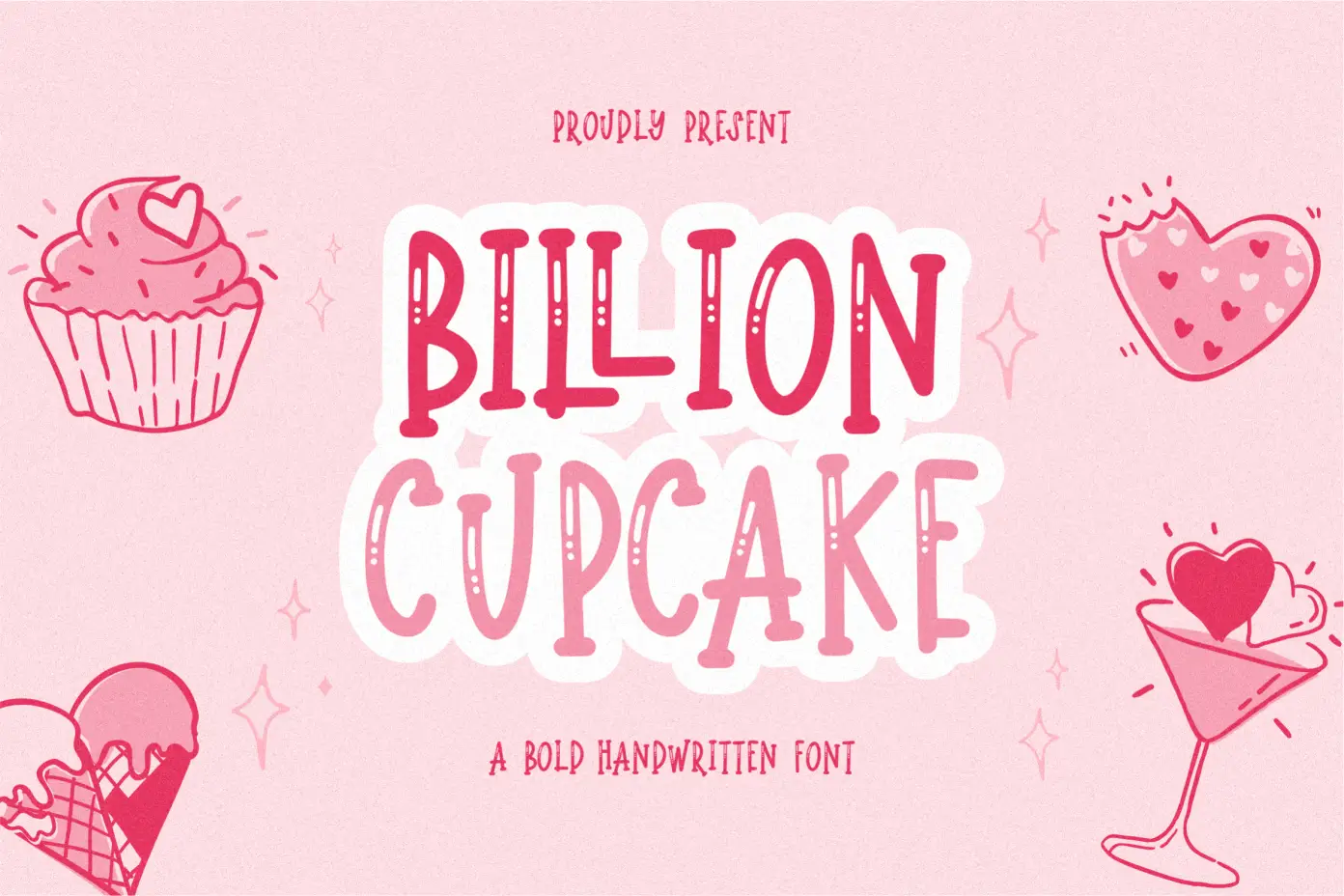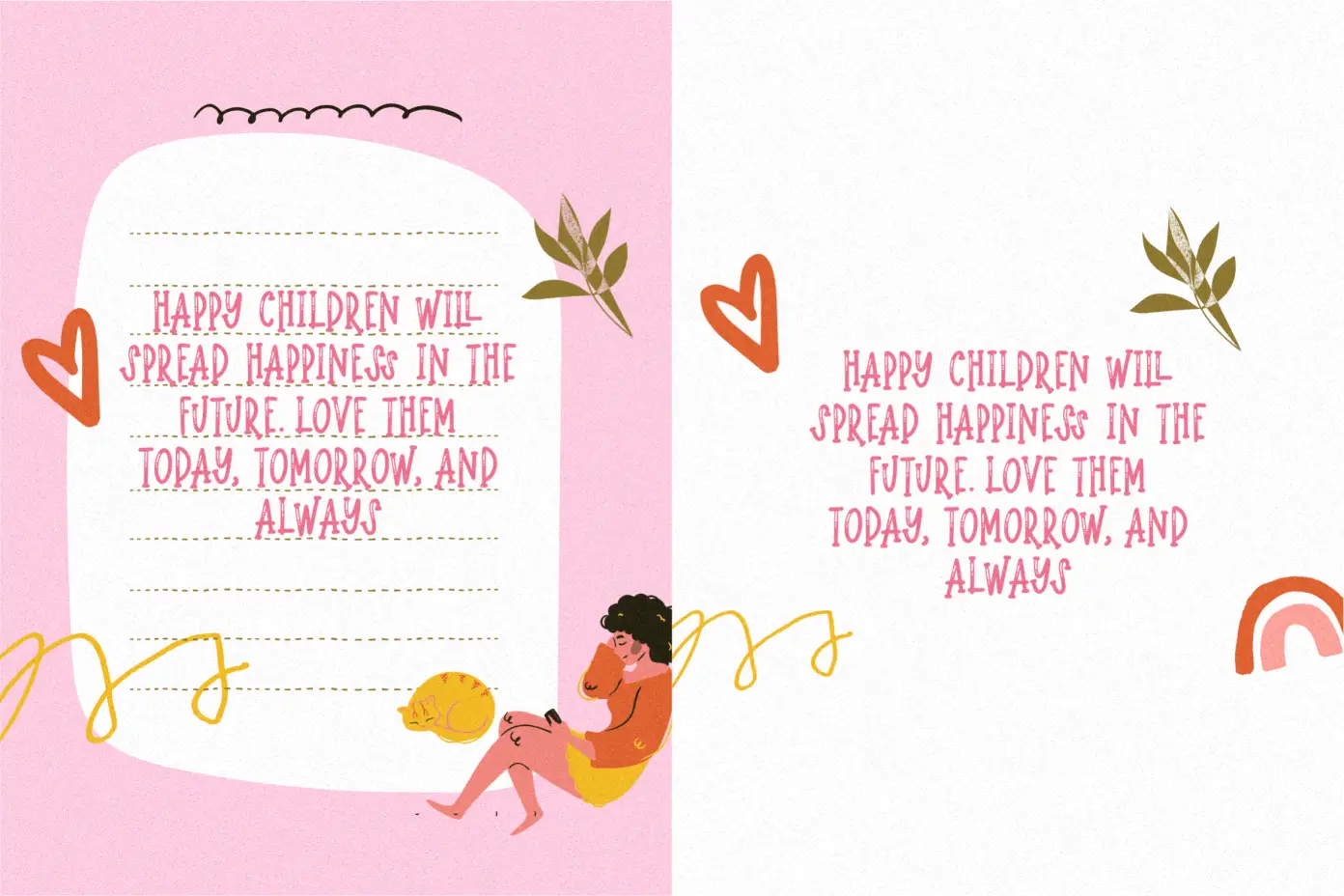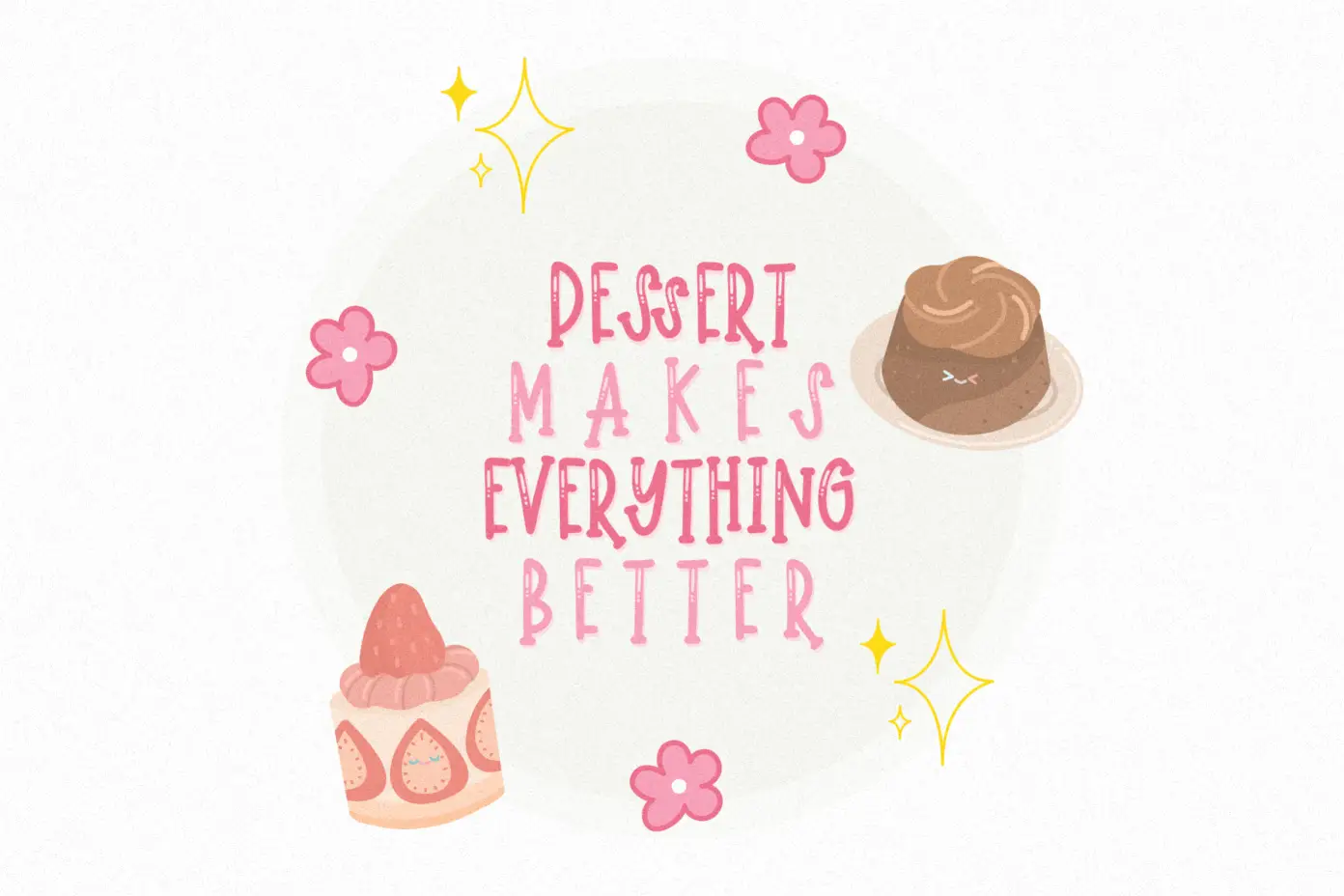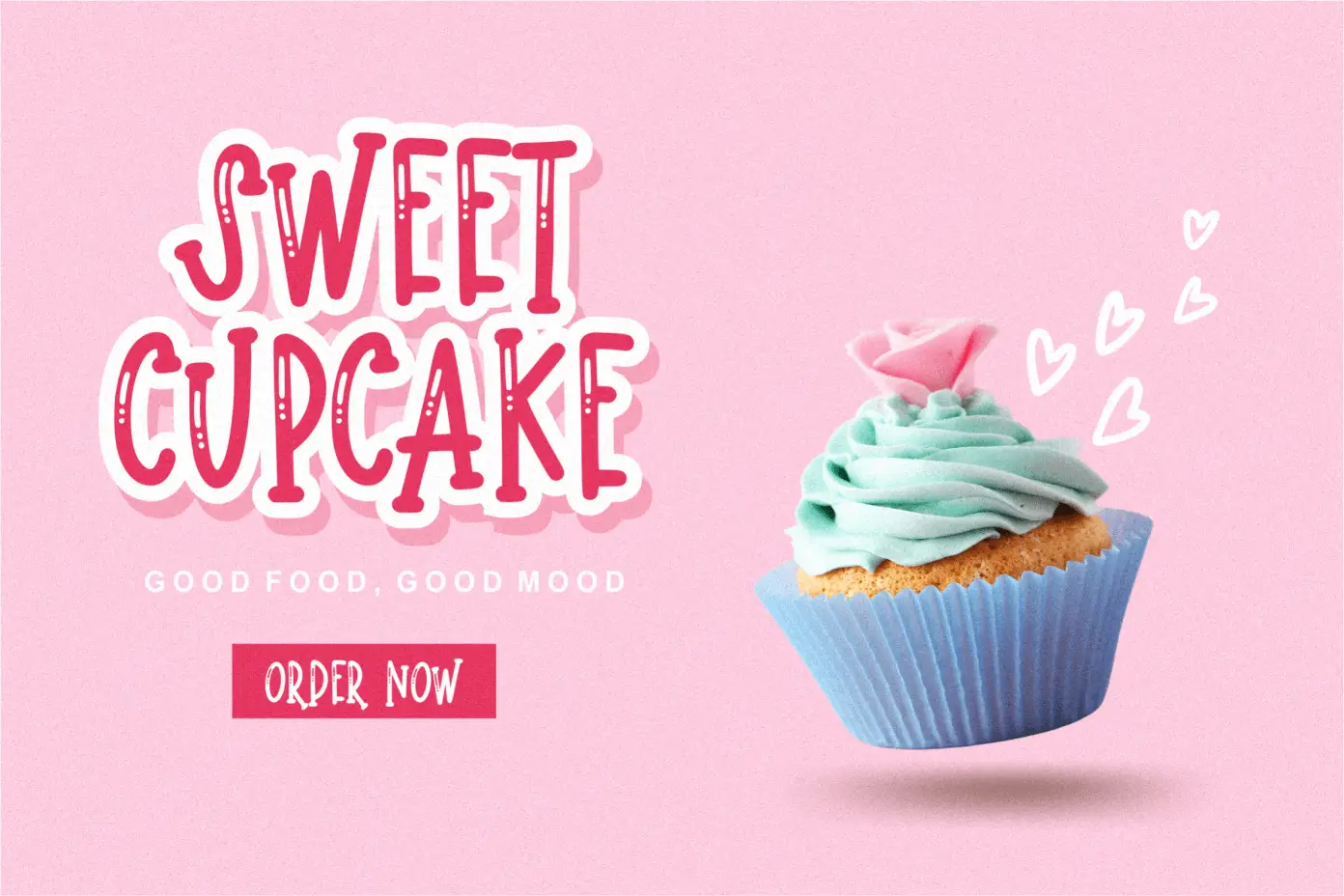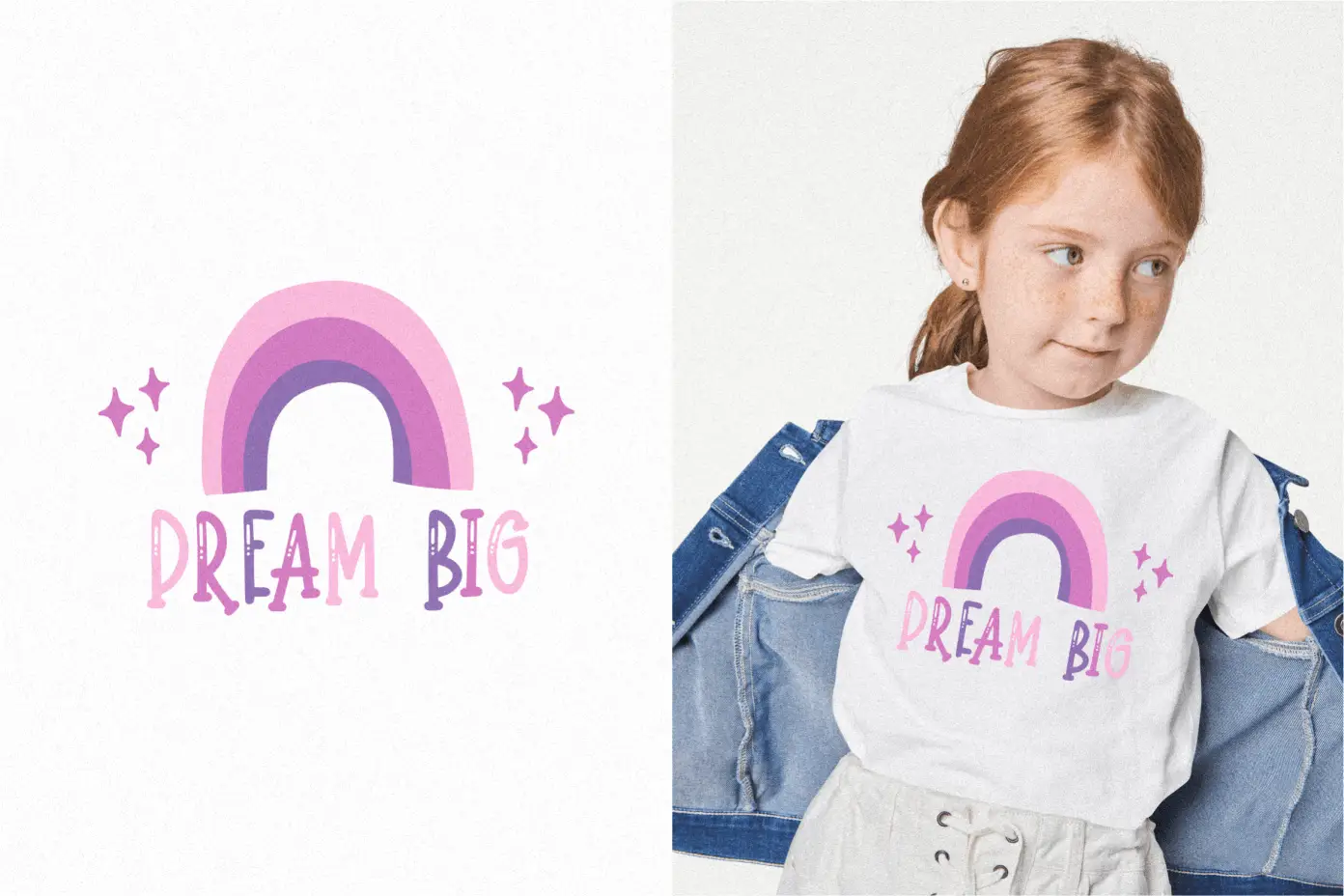
The Billion Cupcake Display Font is a playful and whimsical typeface designed to add a touch of fun to your projects. Perfect for branding, logos, and invitations, this font captures the essence of creativity and joy.
- Unique display style
- Uppercase and lowercase letters
- Highly legible and versatile
Ideal for use in children’s products, party invitations, and any creative project that requires a cheerful and inviting aesthetic.